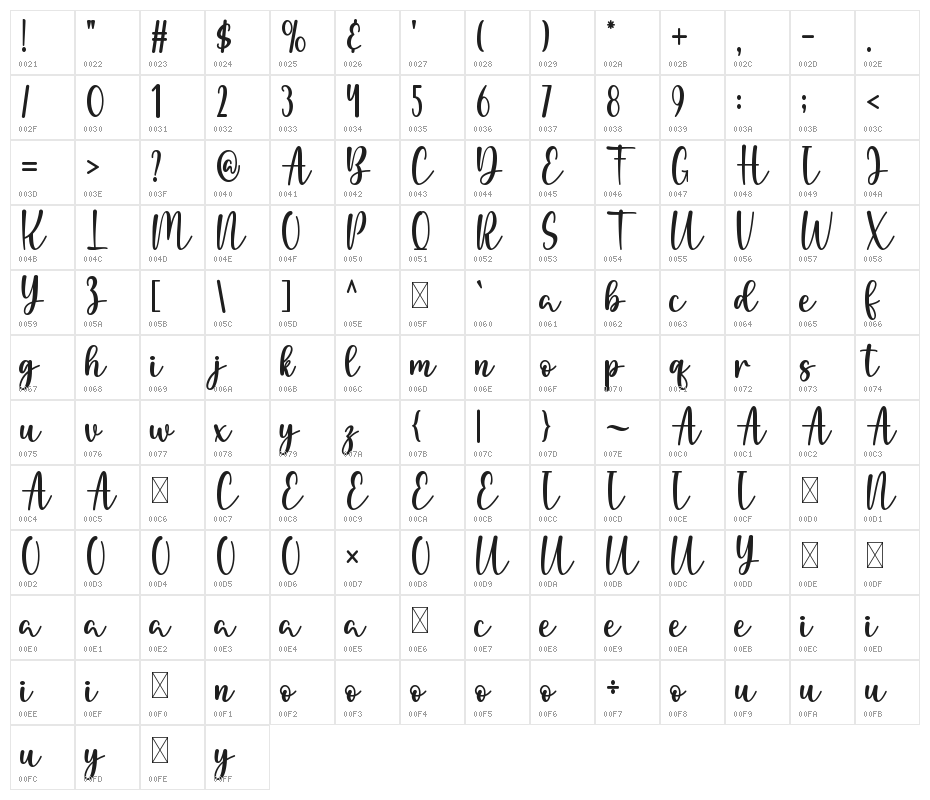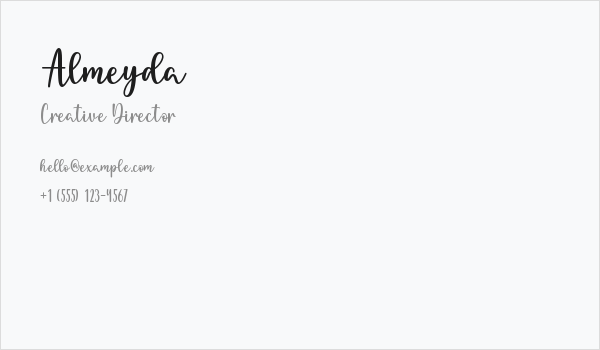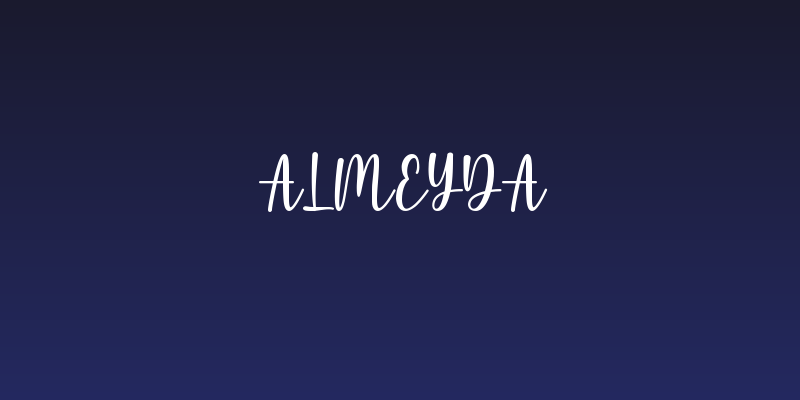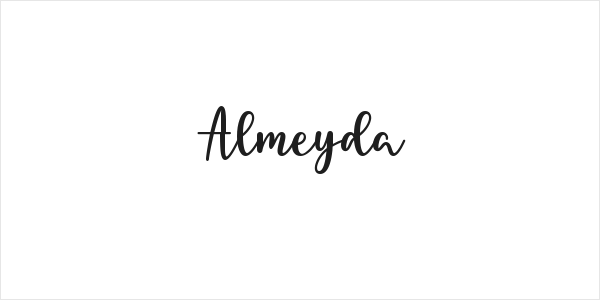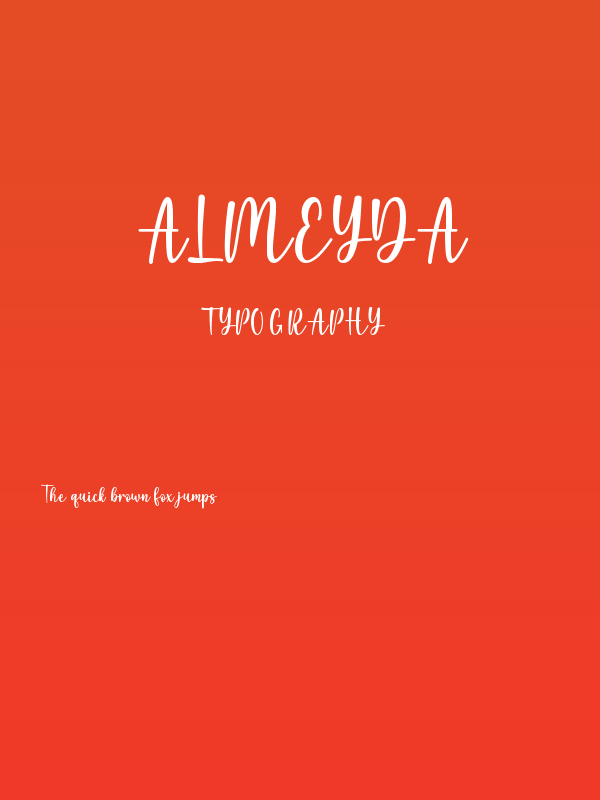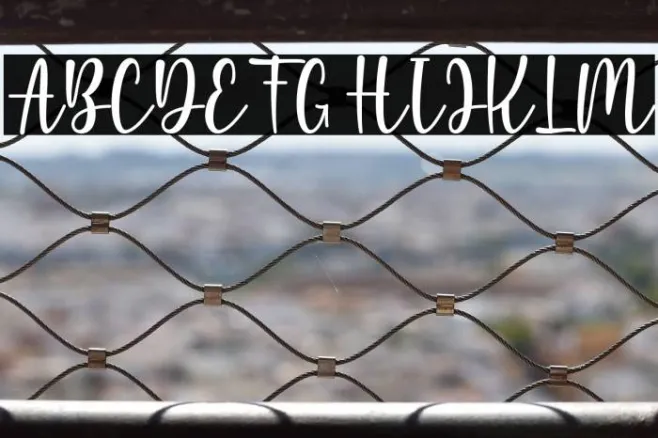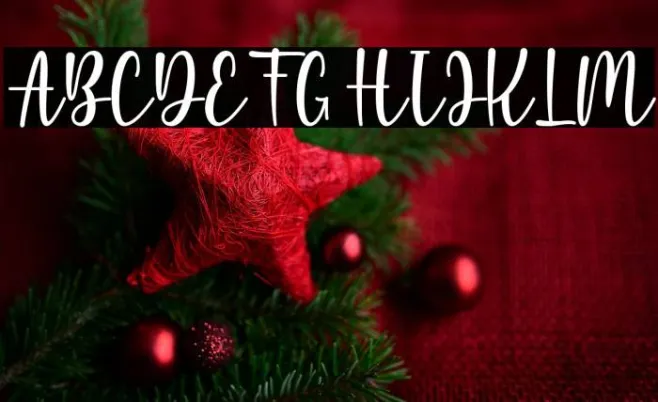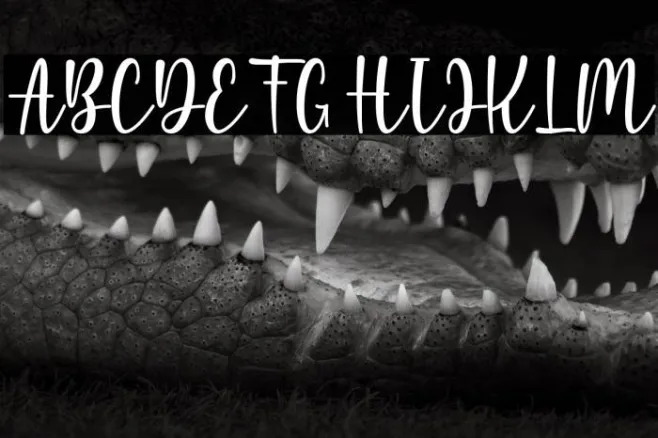
Almeyda Font
Almeyda Description
This font features a lively and flowing script style with a handwritten appearance. The uppercase letters are tall and elegant, with a slight slant that adds a dynamic feel. Lowercase letters are smoothly connected, enhancing the cursive look. The numerals are bold and slightly condensed, maintaining the playful aesthetic. Special characters are creatively designed, complementing the overall style. The font's strokes are consistent in weight, providing a harmonious and cohesive look. It's ideal for projects that require a personal touch, such as invitations, greeting cards, and branding materials.
| Proposed Projects | Ideal for invitations, greeting cards, branding, and personal projects. |